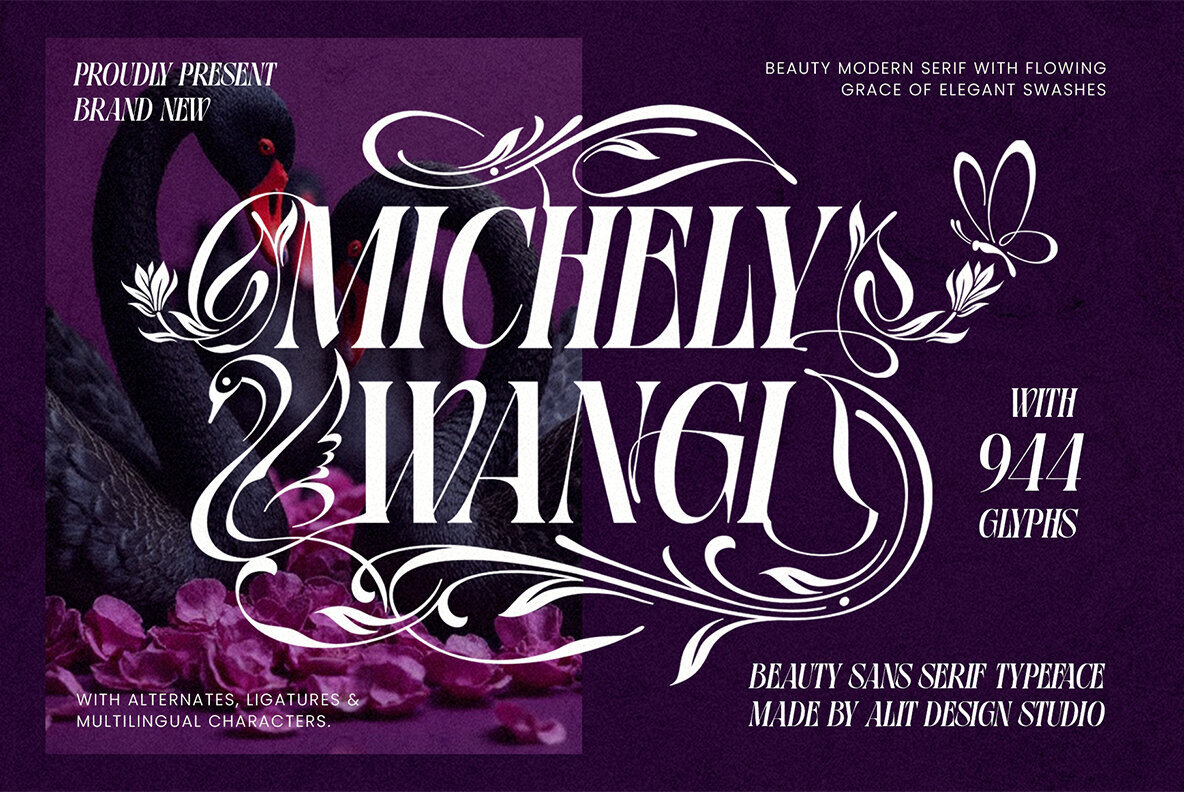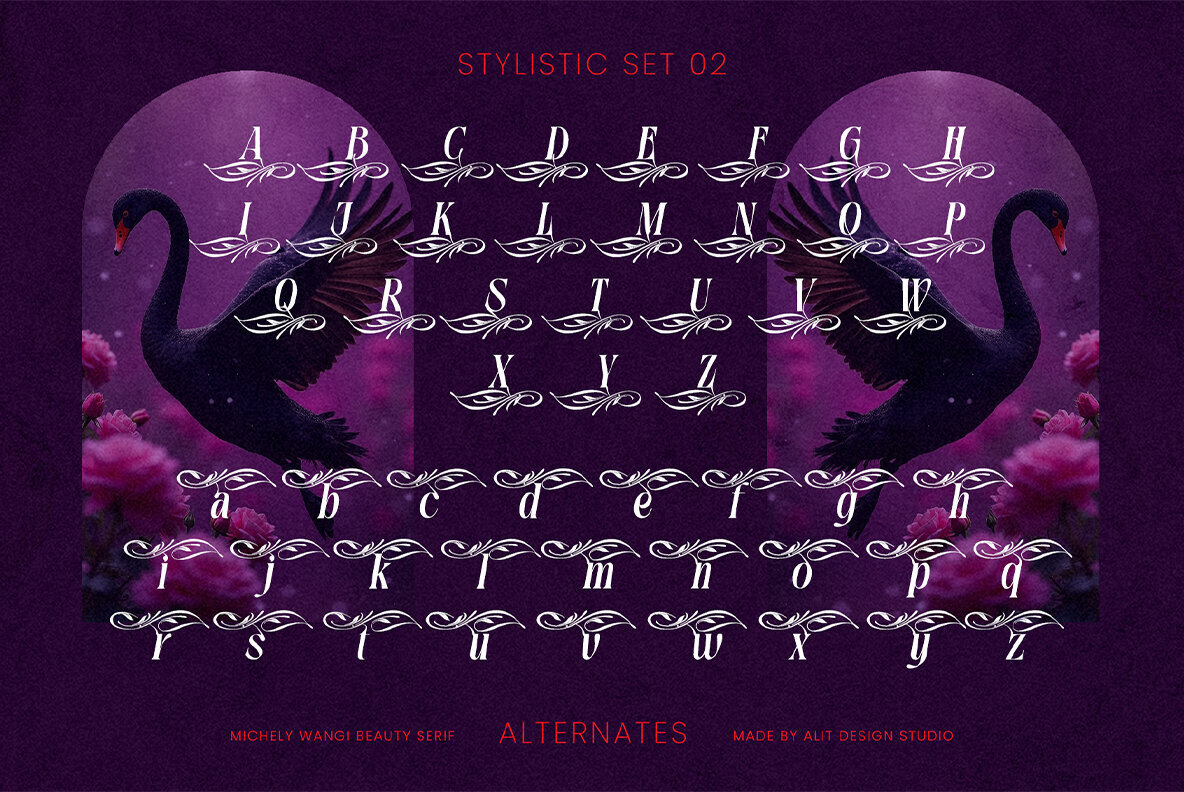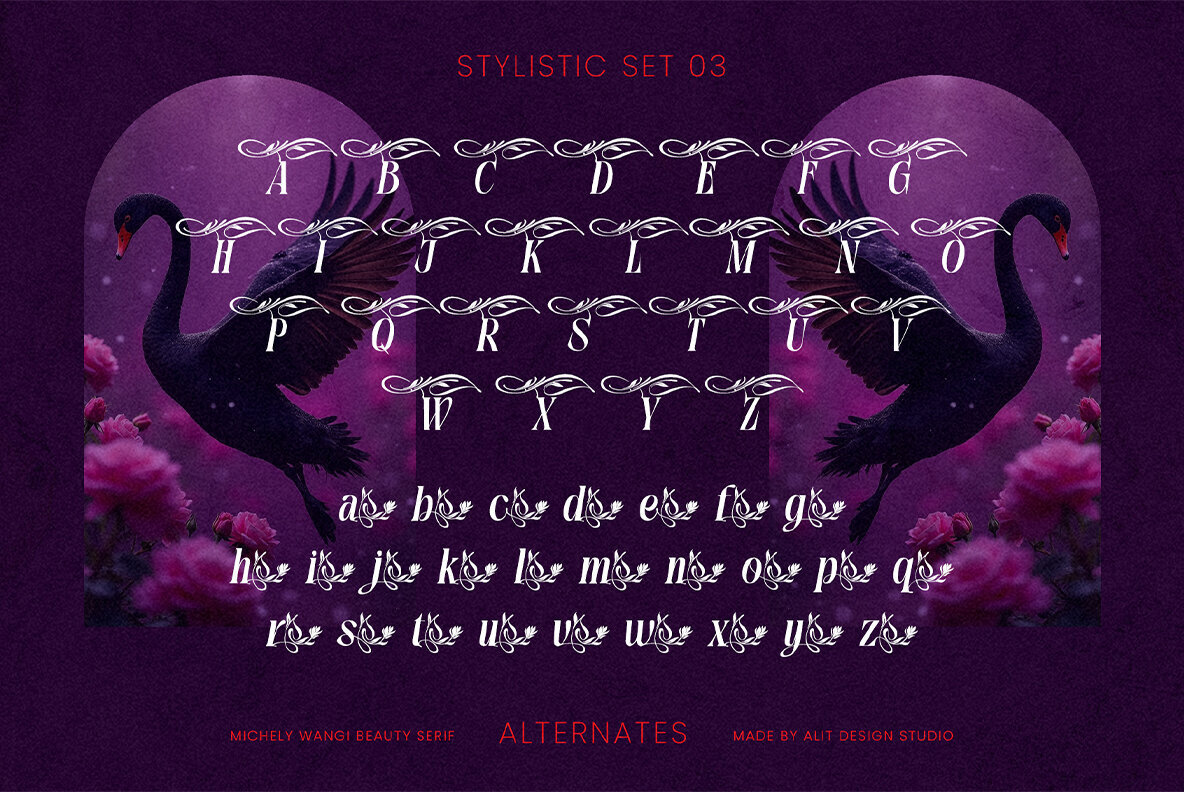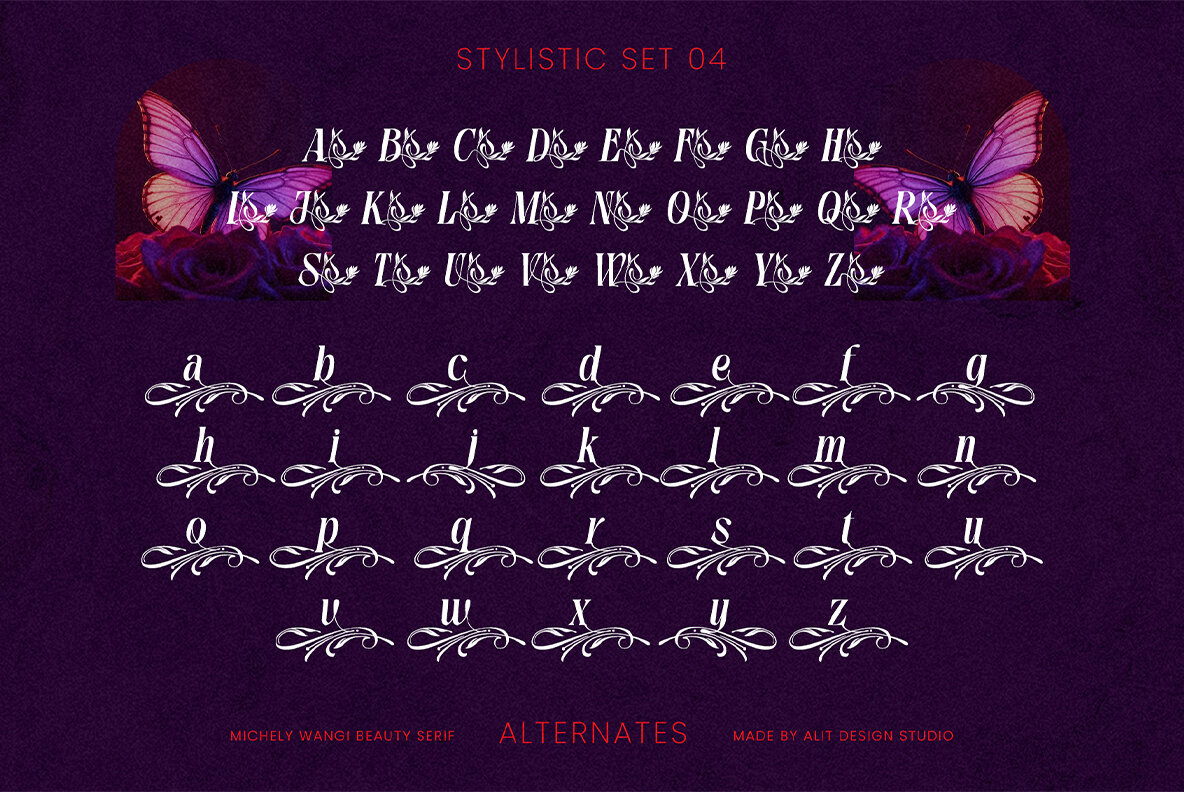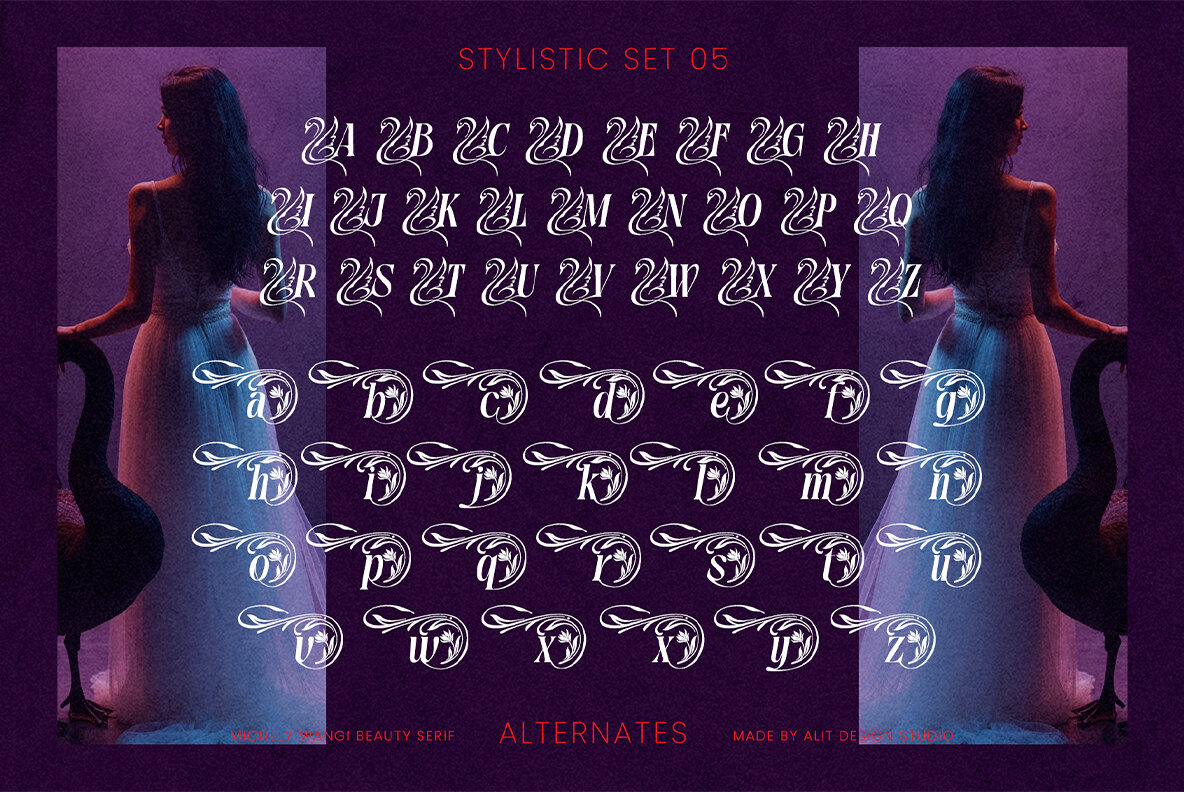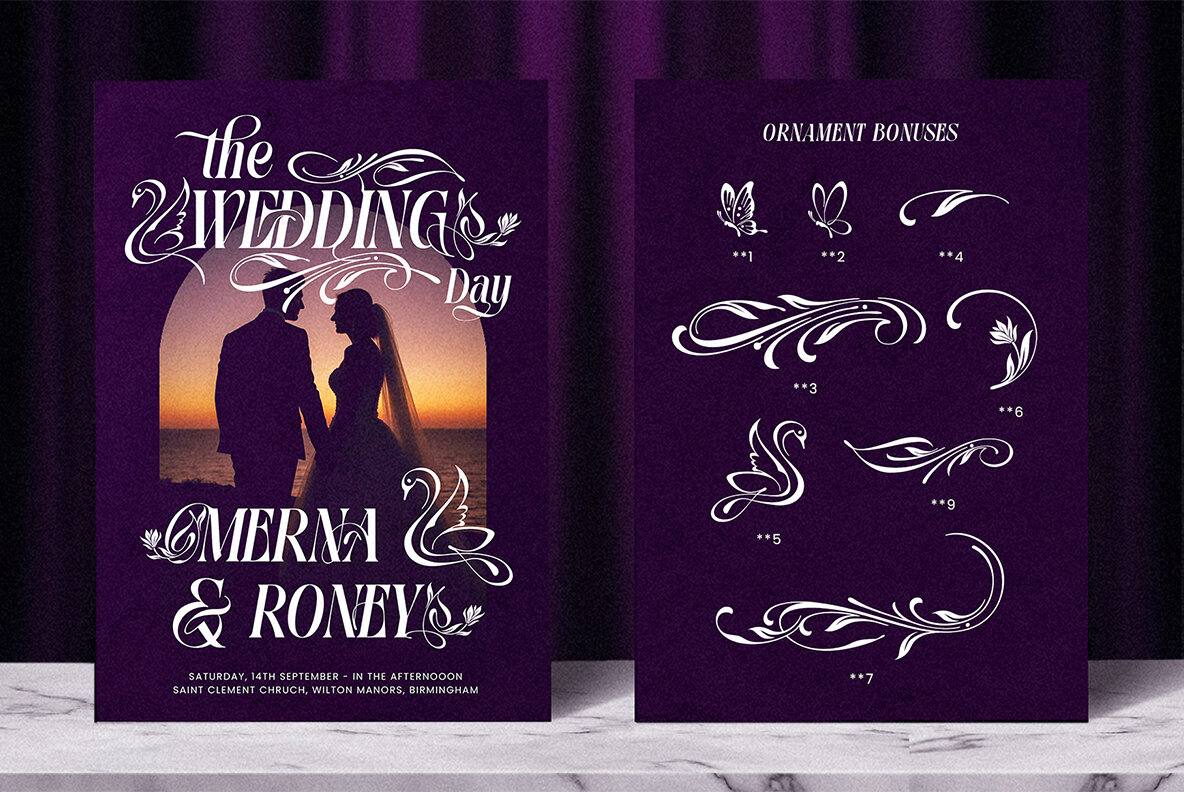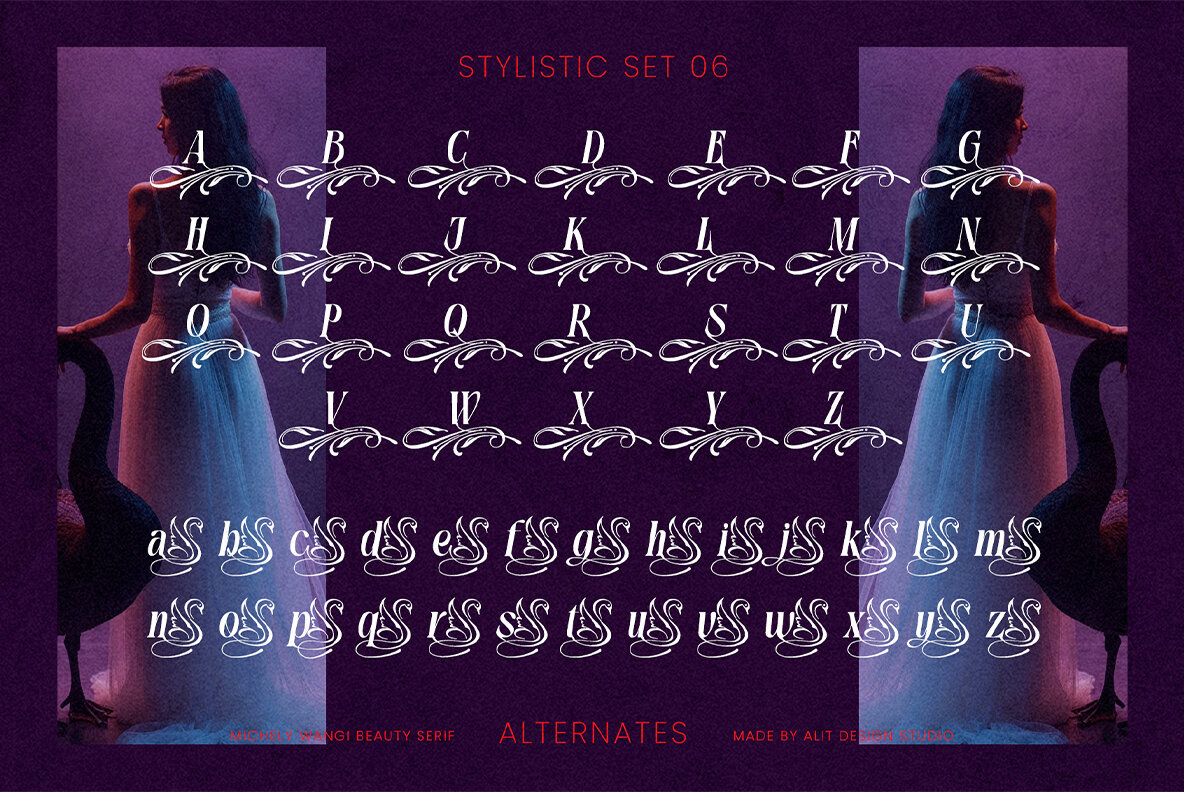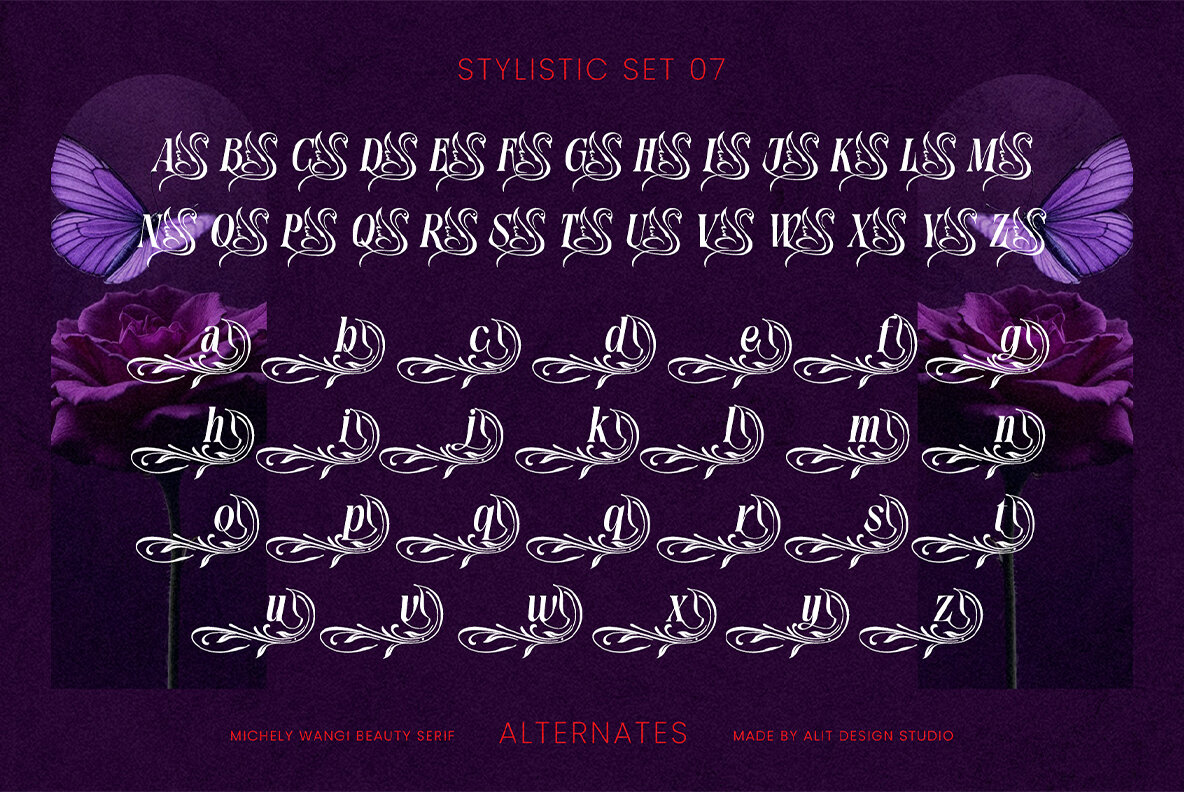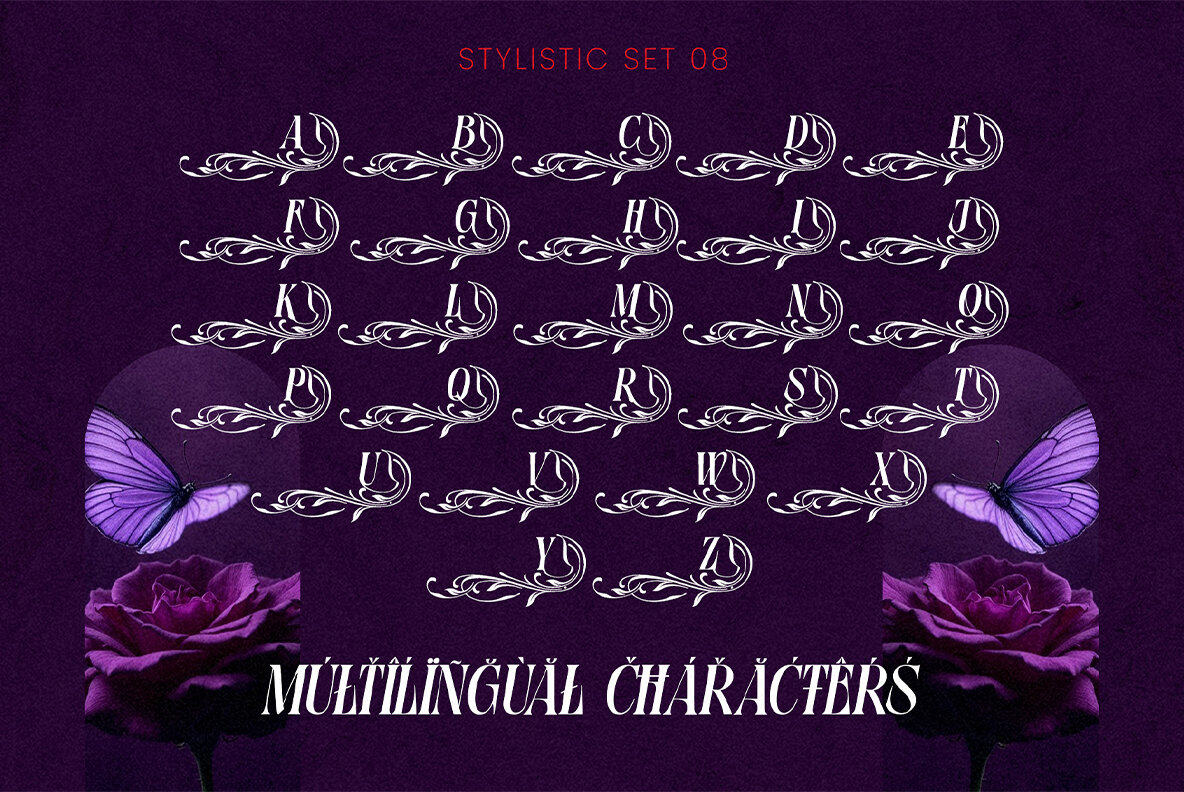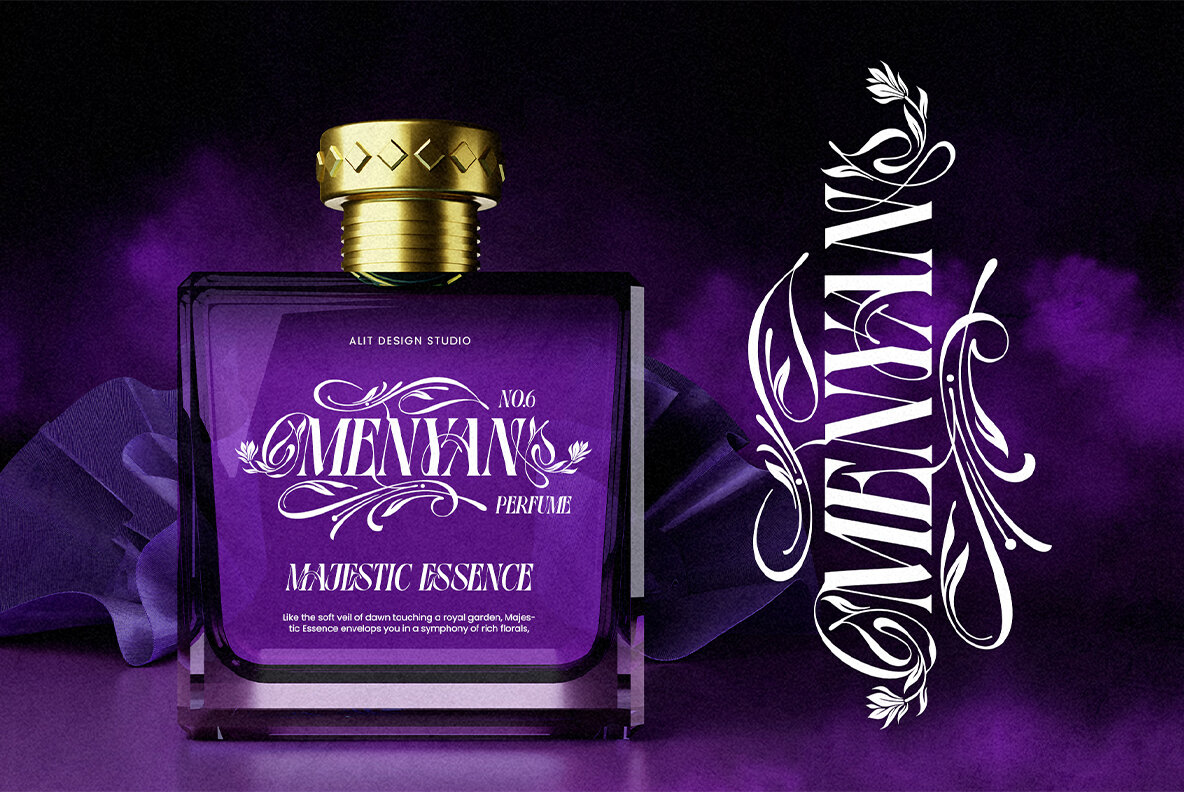
Michely Wangi Font
Michely Wangi Regular
Michely Wangi offers a delightful fusion of traditional serif form and the fluidity of script swashes, creating a typeface that is both legible and visually striking. Each character exudes life, making it an excellent choice for projects that exude luxury, elegance, and natural allure. Whether it's crafting wedding invitations steeped in romance or establishing a sophisticated brand identity, Michely Wangi offers versatility and beauty. Its decorative elements enrich every design, turning simple text into captivating artistry. Features:Michely Wangi: A Slanted Serif Masterpiece